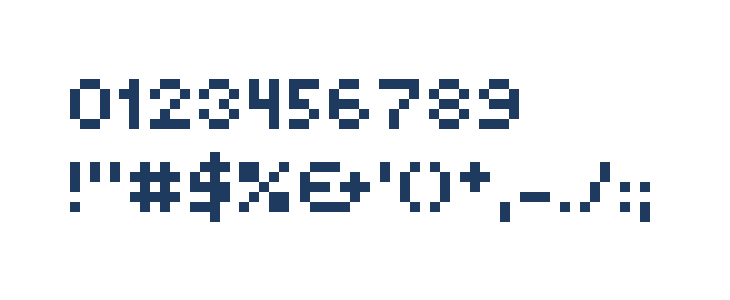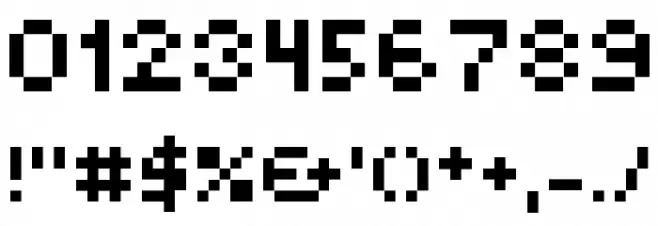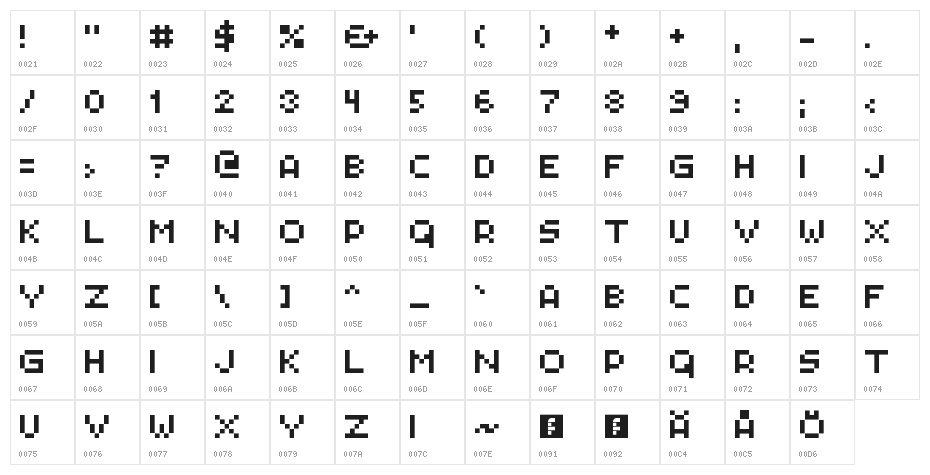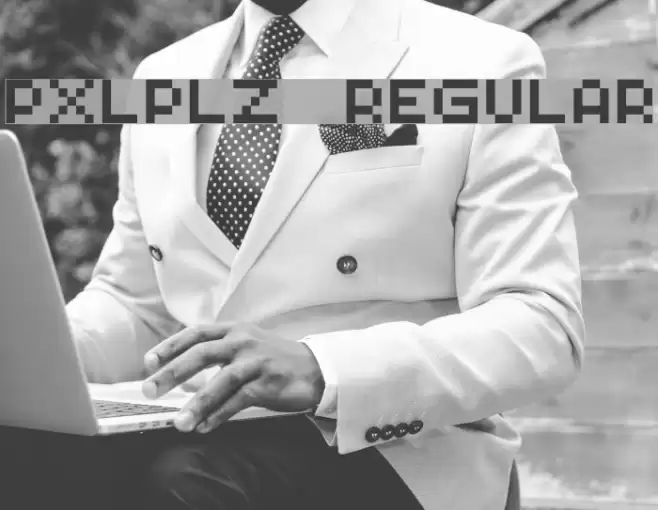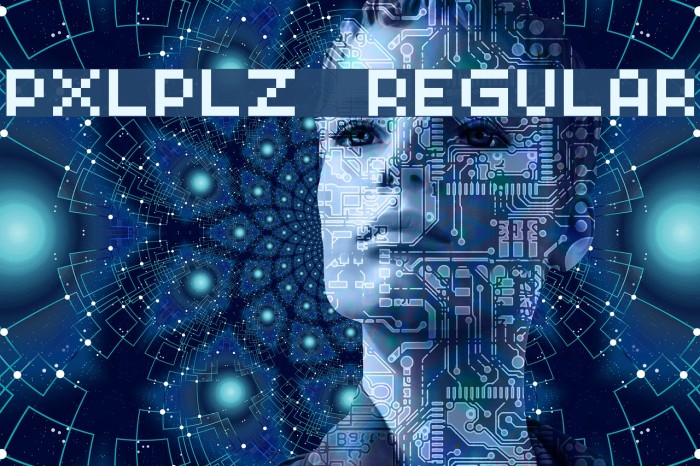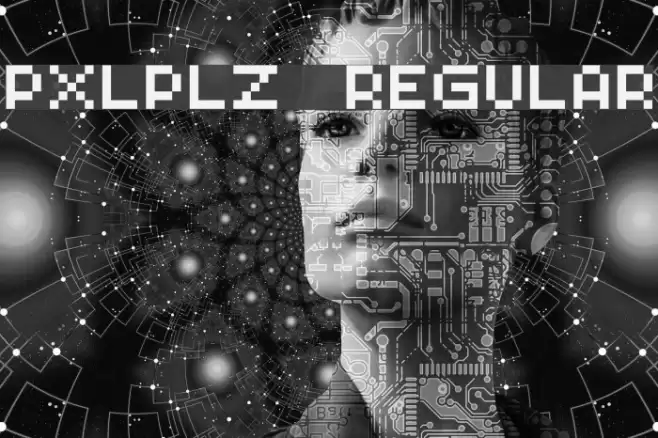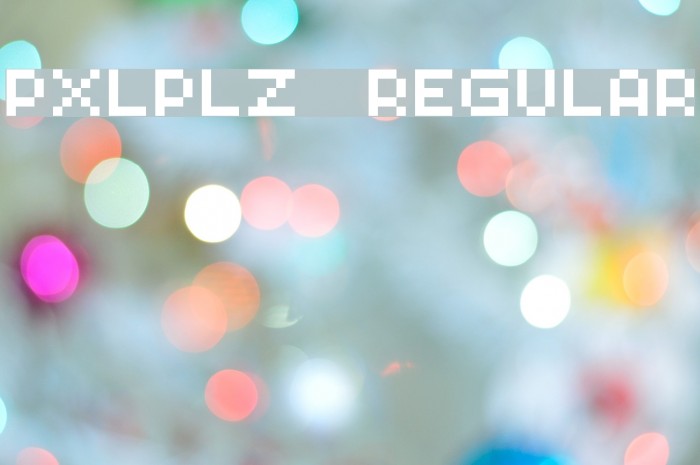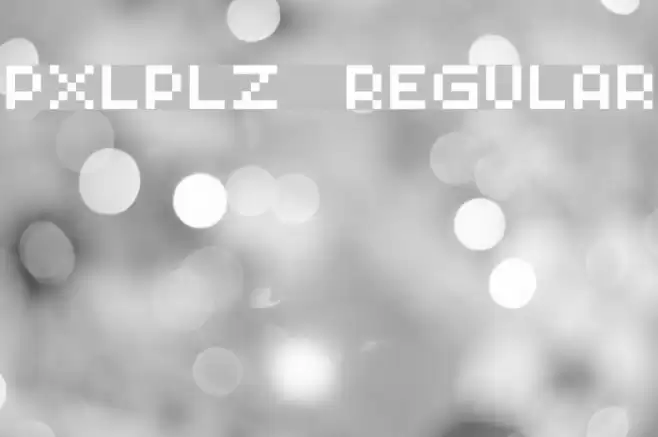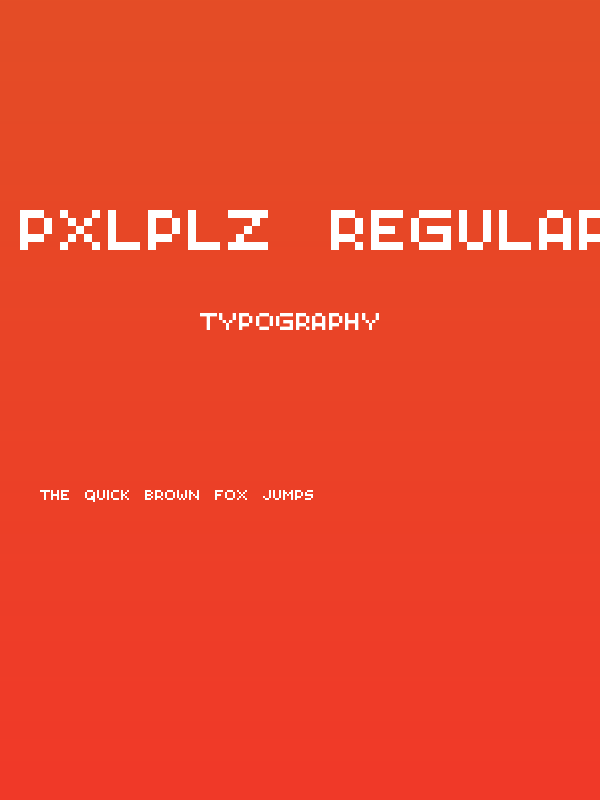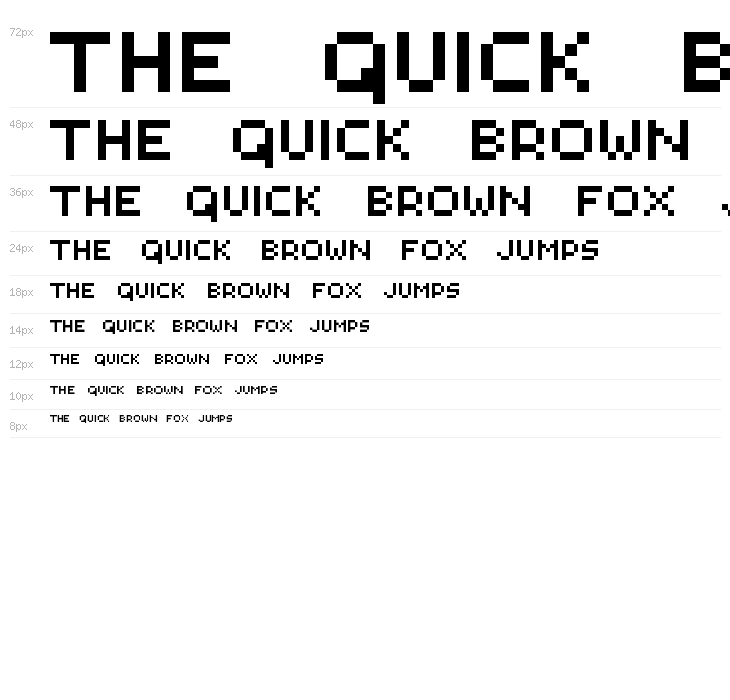
PXLPLZ Regular Font
PXLPLZ Regular Description
This font features a pixelated, blocky design reminiscent of early digital displays and video games. Each character is constructed with a grid-like structure, giving it a distinctly retro and digital aesthetic. The uniformity in height and width across characters ensures a consistent visual rhythm, ideal for capturing a nostalgic or tech-inspired feel. Its geometric shapes and sharp edges make it highly legible at various sizes, though it shines best in larger formats where its pixelated charm can be fully appreciated. The font includes a full set of uppercase and lowercase letters, numerals, and a variety of special characters, making it versatile for different design needs.
| Proposed Projects | Ideal for retro video game designs, tech-themed posters, digital art projects, and any creative work seeking a nostalgic or digital aesthetic. |